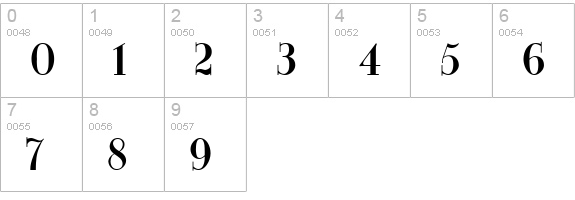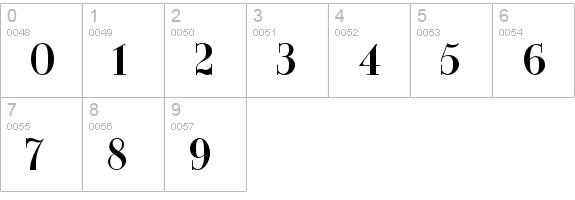
NewOrder Font Details
Introducing NewOrder font, a sleek and modern typeface that exudes sophistication and elegance. With its clean lines and stylish curves, NewOrder is perfect for adding a touch of contemporary flair to any design project. This versatile font is sure to make a statement and elevate the overall aesthetic of your work. What sets NewOrder apart is not just its striking visual appeal, but also its accessibility. This font is available for free download at FontsMarket.com, making it the perfect choice for designers looking to add a high-quality, professional font to their collection without breaking the bank. Whether you're working on a branding project, a website design, or any other creative endeavor, NewOrder font is sure to impress with its timeless style and effortless sophistication. Download it today and see the difference it can make in your next project!